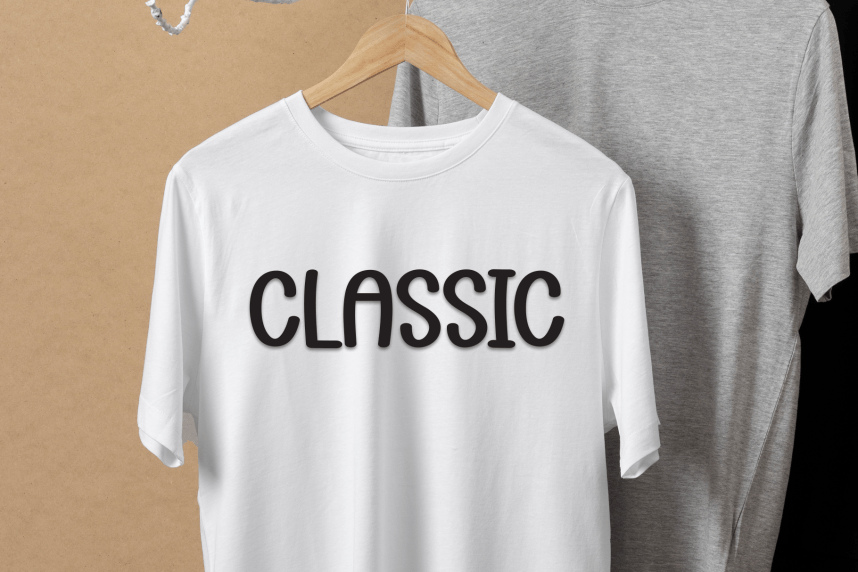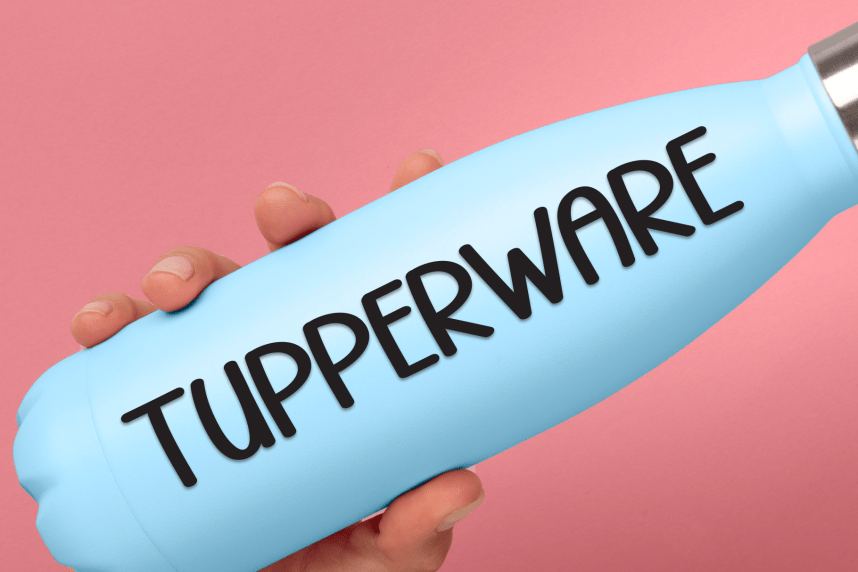
Book Camelia Playful Font
Book Camelia Playful Font is a sweet and friendly handwritten display font. Cute and fun, this font is ideal for writing wedding invitations, cards, or any other design that might need a playful touch!